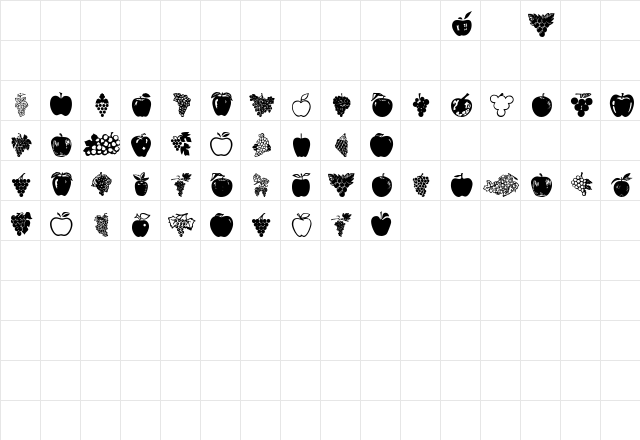
AIAppleWine Regular
Design Context for AIAppleWine
AIAppleWine is a composed and adaptable typeface that performs quietly and consistently across a wide range of design contexts.